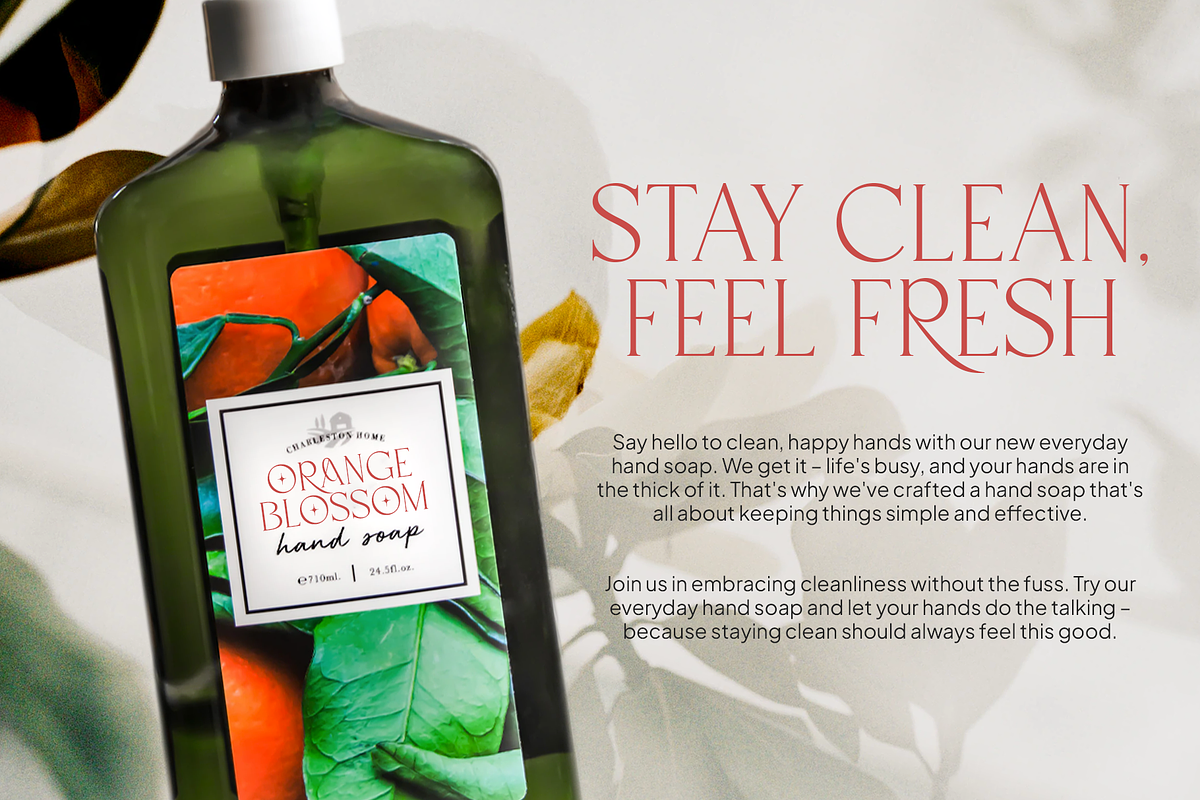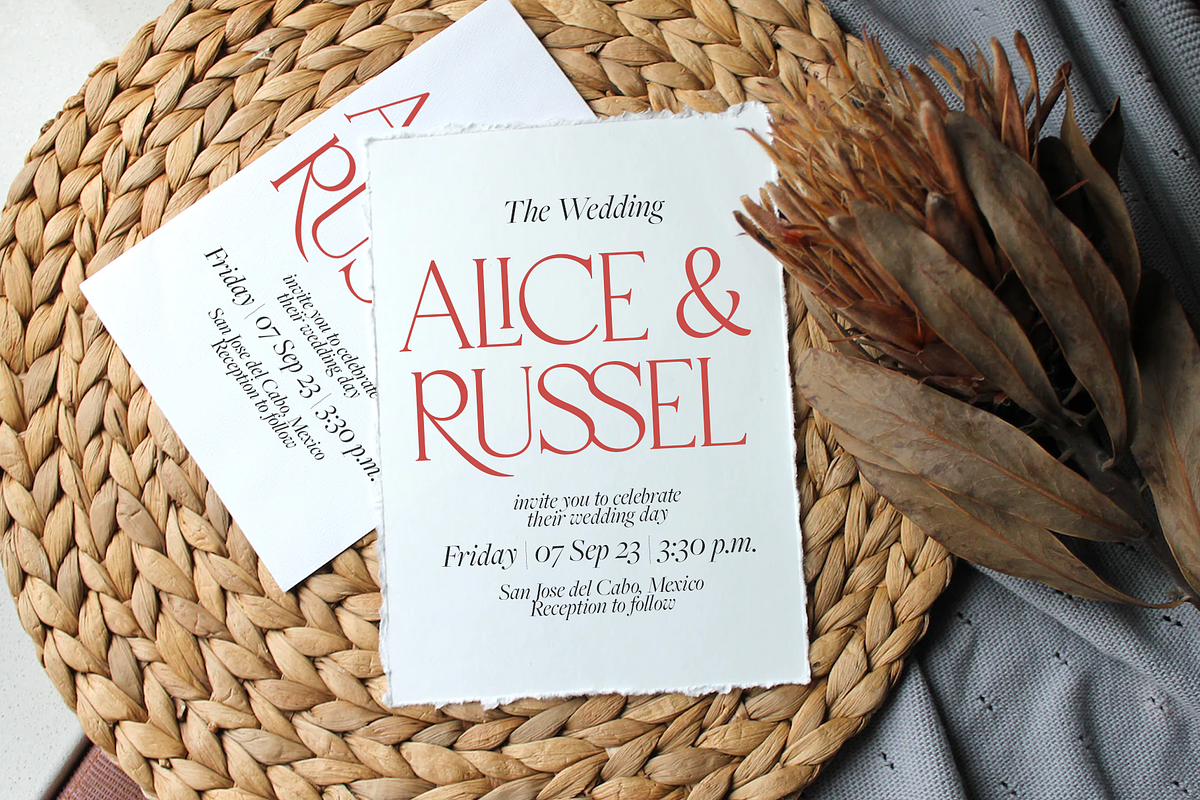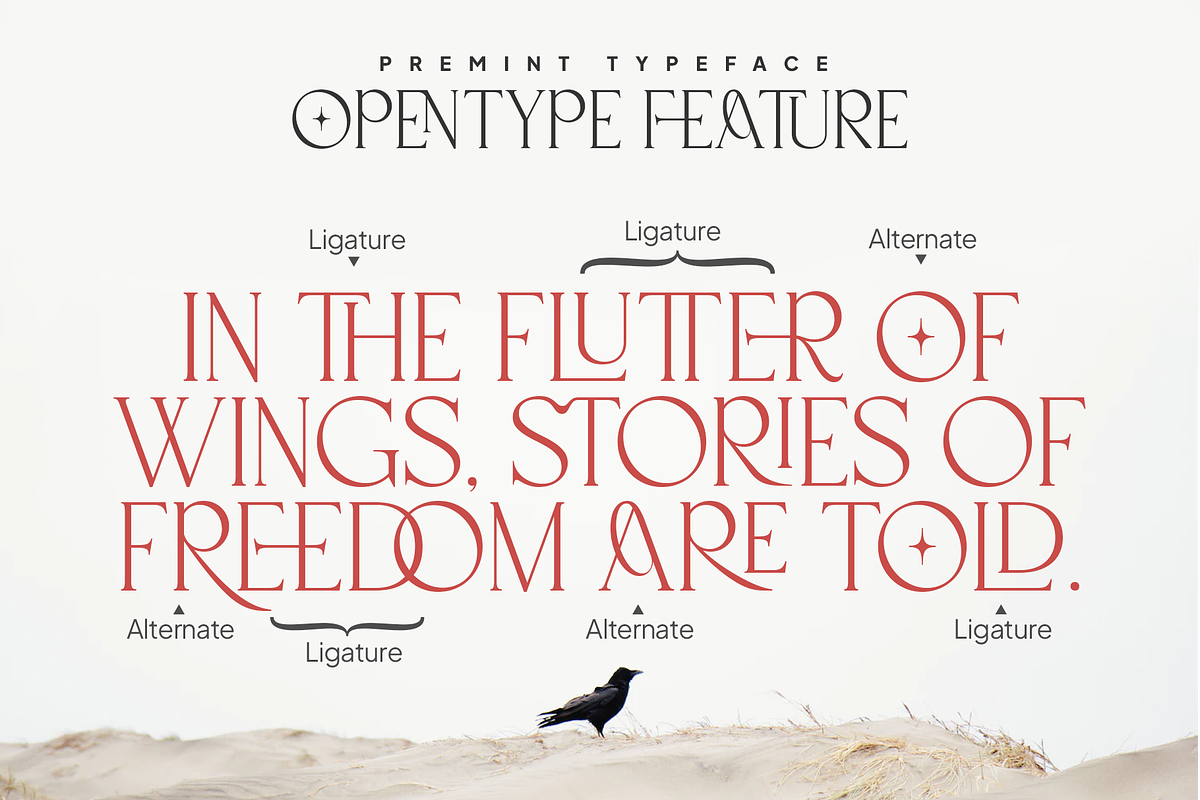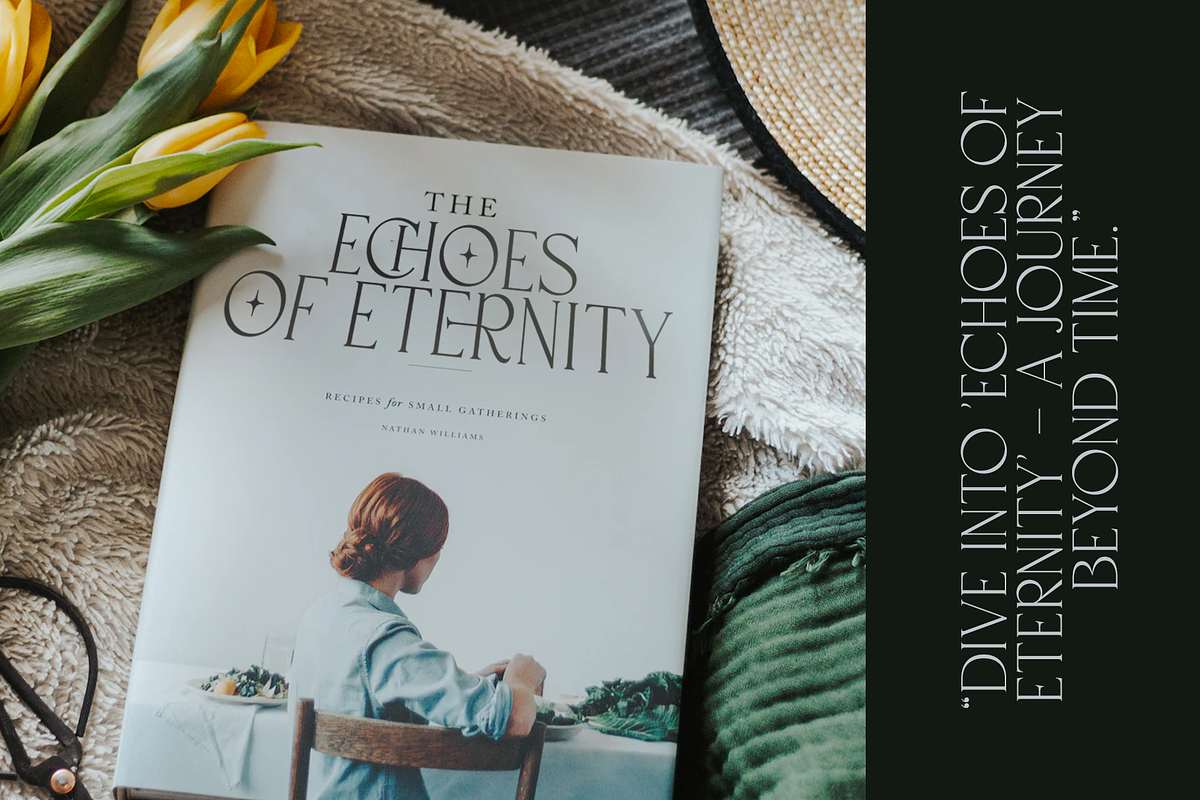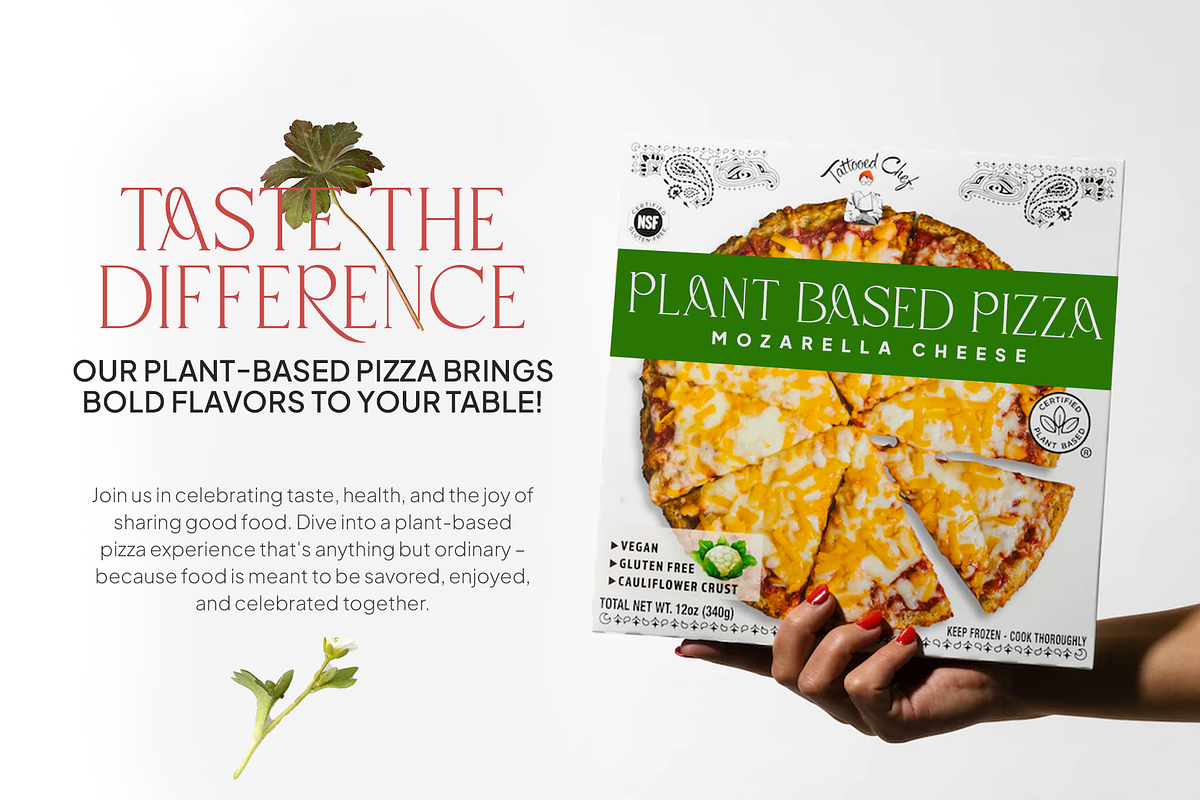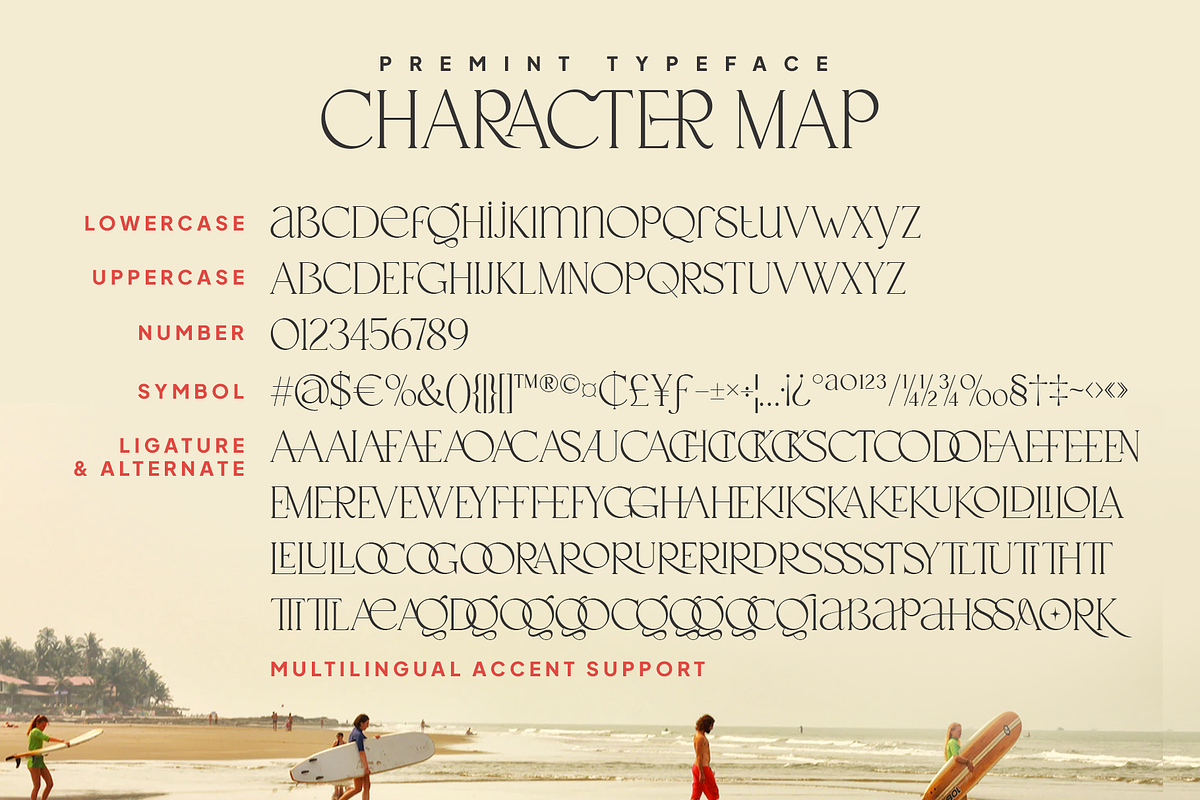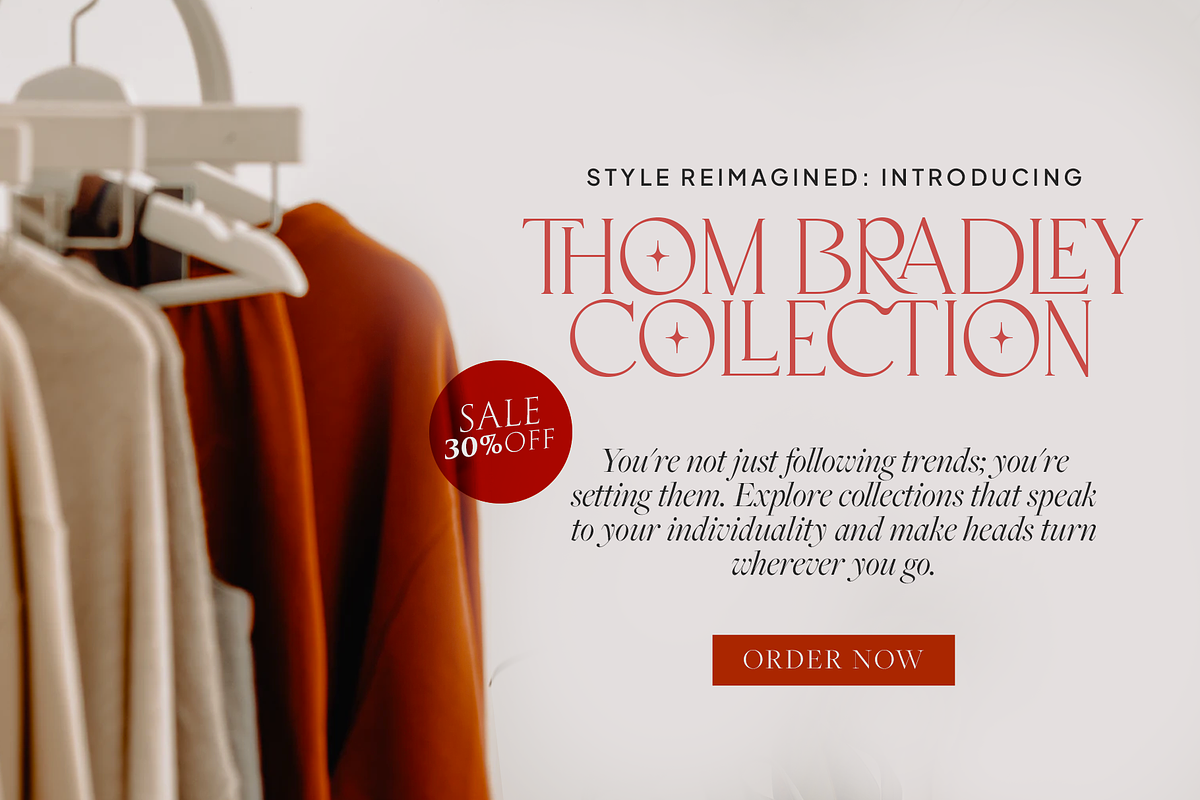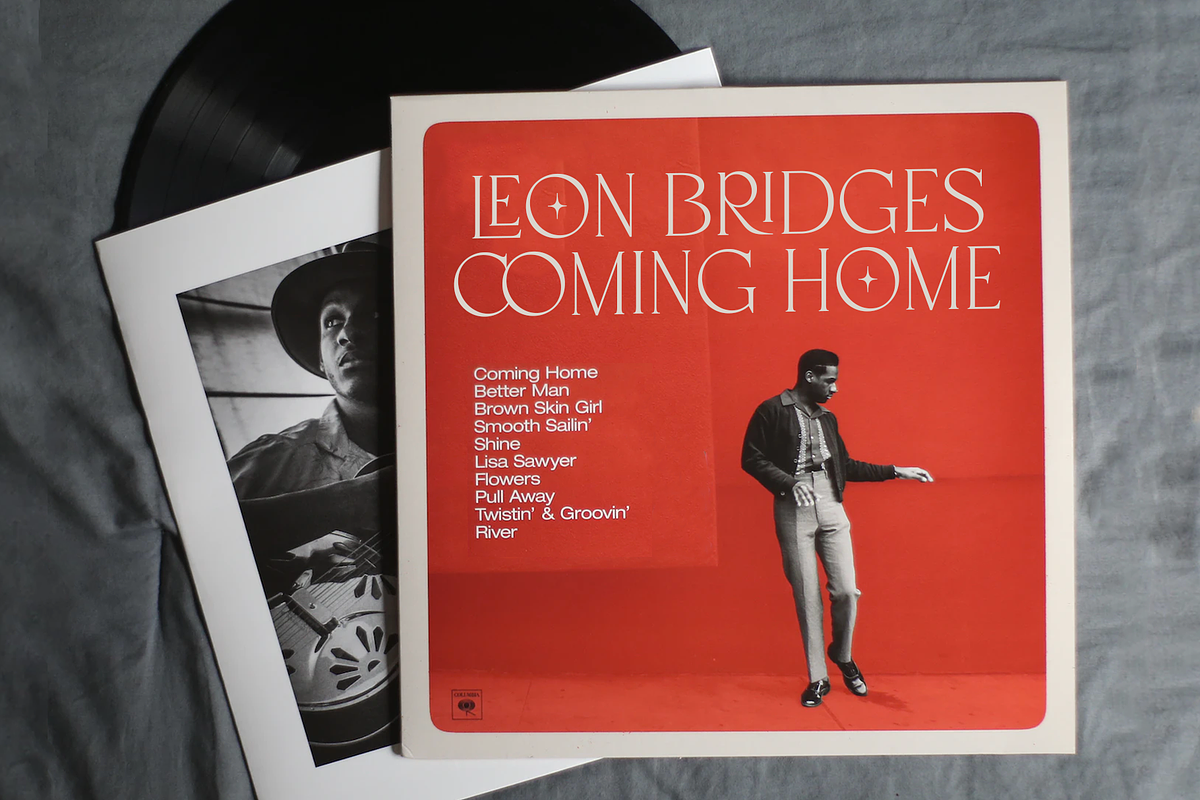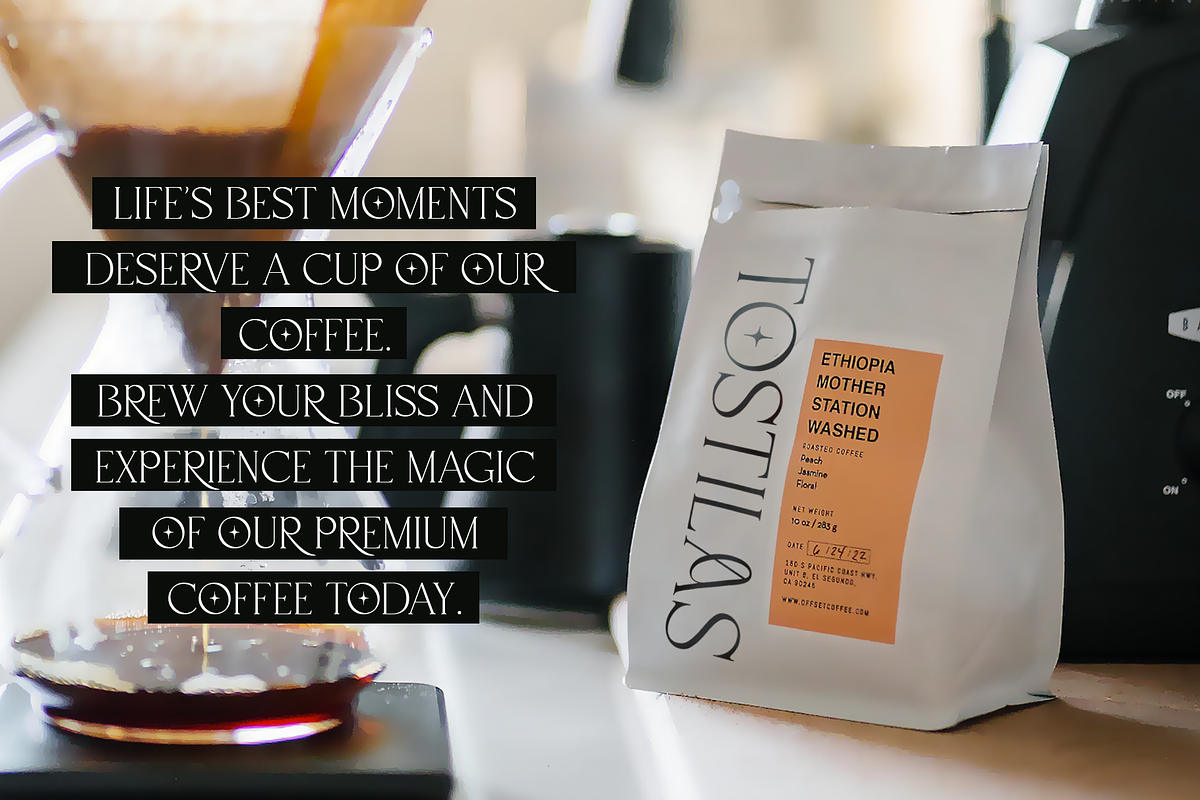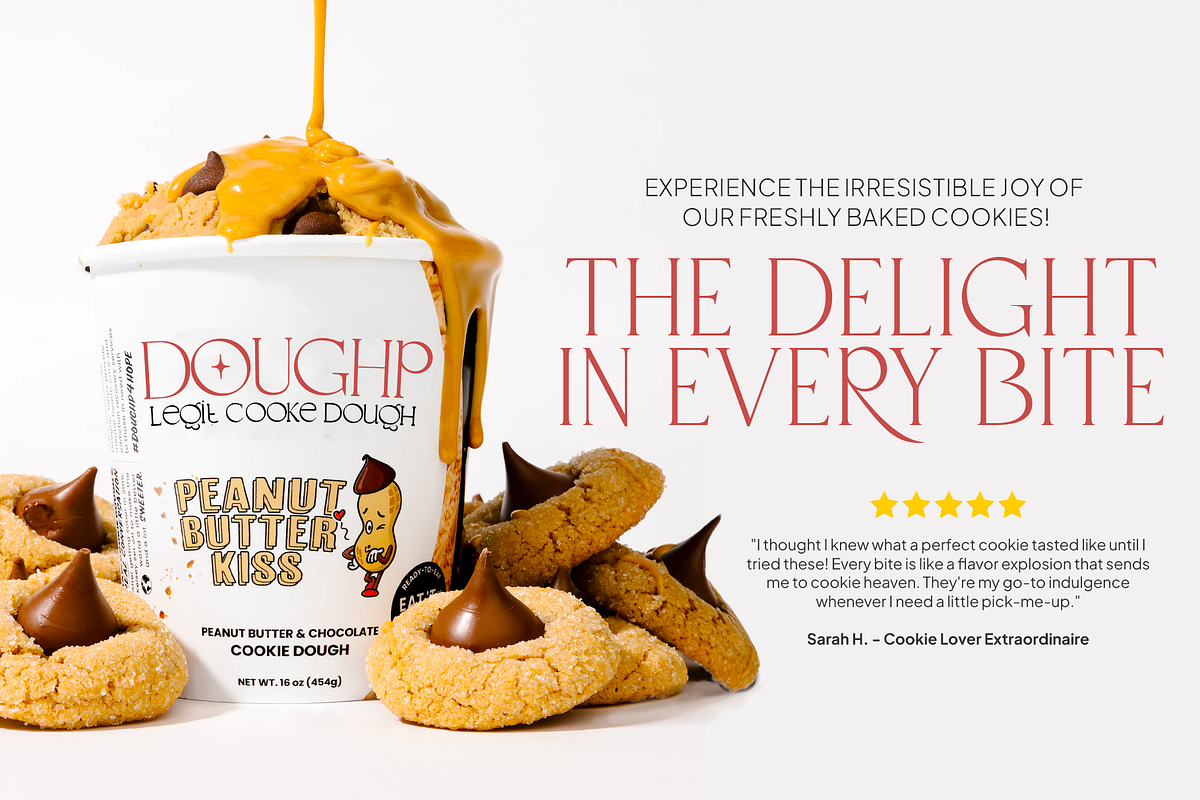
Premint Regular Stylish Serif Font
Premint is a modern elegant serif typeface. This font looks very simple, clean, and elegant. Specially designed by skilled hands makes this font is the perfect fit for all your big projects.
Premint is perfect for branding projects, logo, wedding designs, social media posts, advertisements, product packaging, product designs, label, photography, watermark, invitation, stationery and any projects that need handwriting taste.